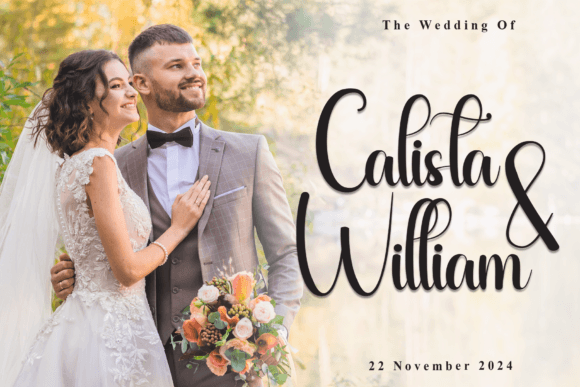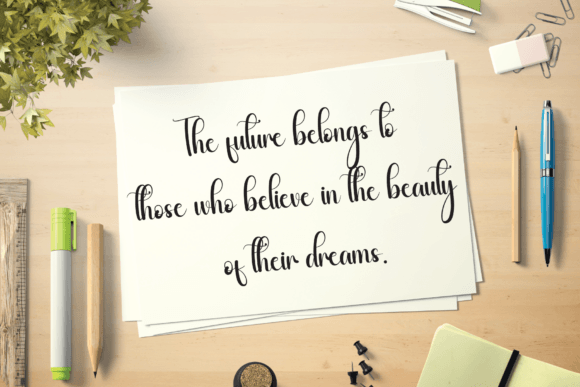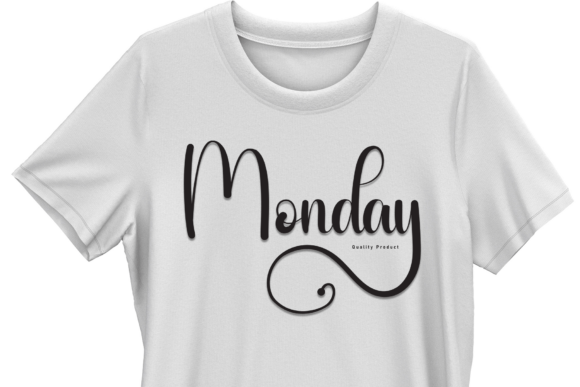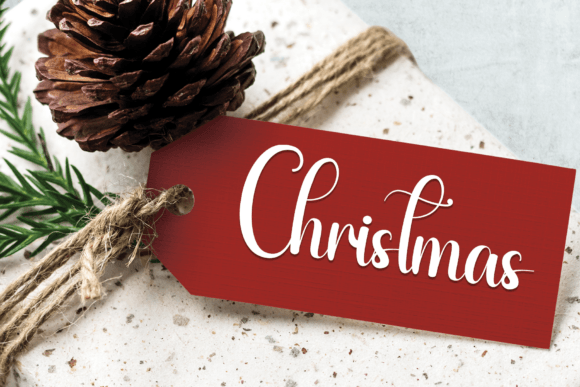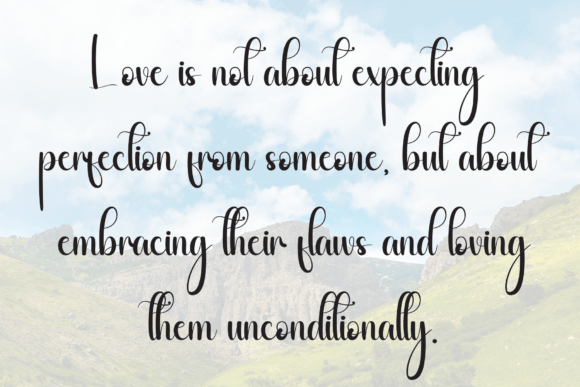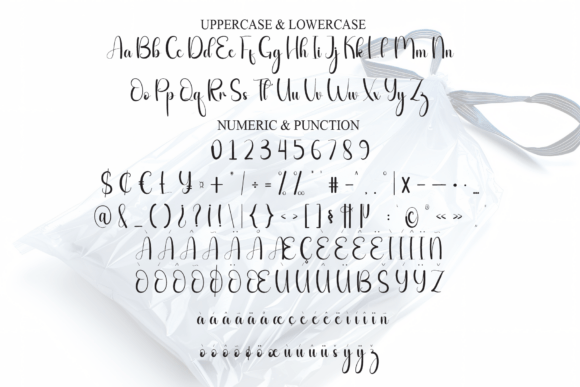
Introduction to Icebag Font
Immerse yourself in the delightful charm of a distinctive handwritten display font, that exudes a sweet and friendly vibe.
This adorable and playful font enriches any design it graces, breathing life into wedding invitations, personalized cards, or any creative endeavour that could use a sprinkle of cheerful and whimsical touch This is not just a font, but a tool to express joy, intimacy and an unmistakable streak of fun.